Typography must be scaled properly in web design to ensure a seamless user experience. However, the one-size-fits-all approach is no longer applicable since websites can be viewed on various platforms and viewports. Therefore, leveraging the best font size for responsive website is crucial to enhance flexibility and legibility.
Here, we’ll dive into the key considerations for selecting the ideal font size to improve your website’s performance.
Key Takeaways:
- There is no exact rule about choosing font size; however, there are some practices to make typography more harmonic.
- The default or base size of the font is usually used as the body text, which is 16px.
- Depending on the viewport, like desktop, tablet, or mobile, font size may require different scaling.
- Always test font sizes on different screen sizes and gather user feedback to ensure an optimal user experience.
Best Font Size for Responsive Website Design
There is no clear rule about the best font size. However, you can still adjust the right size by considering some factors. Here are some good practices for adjusting font size on some devices.
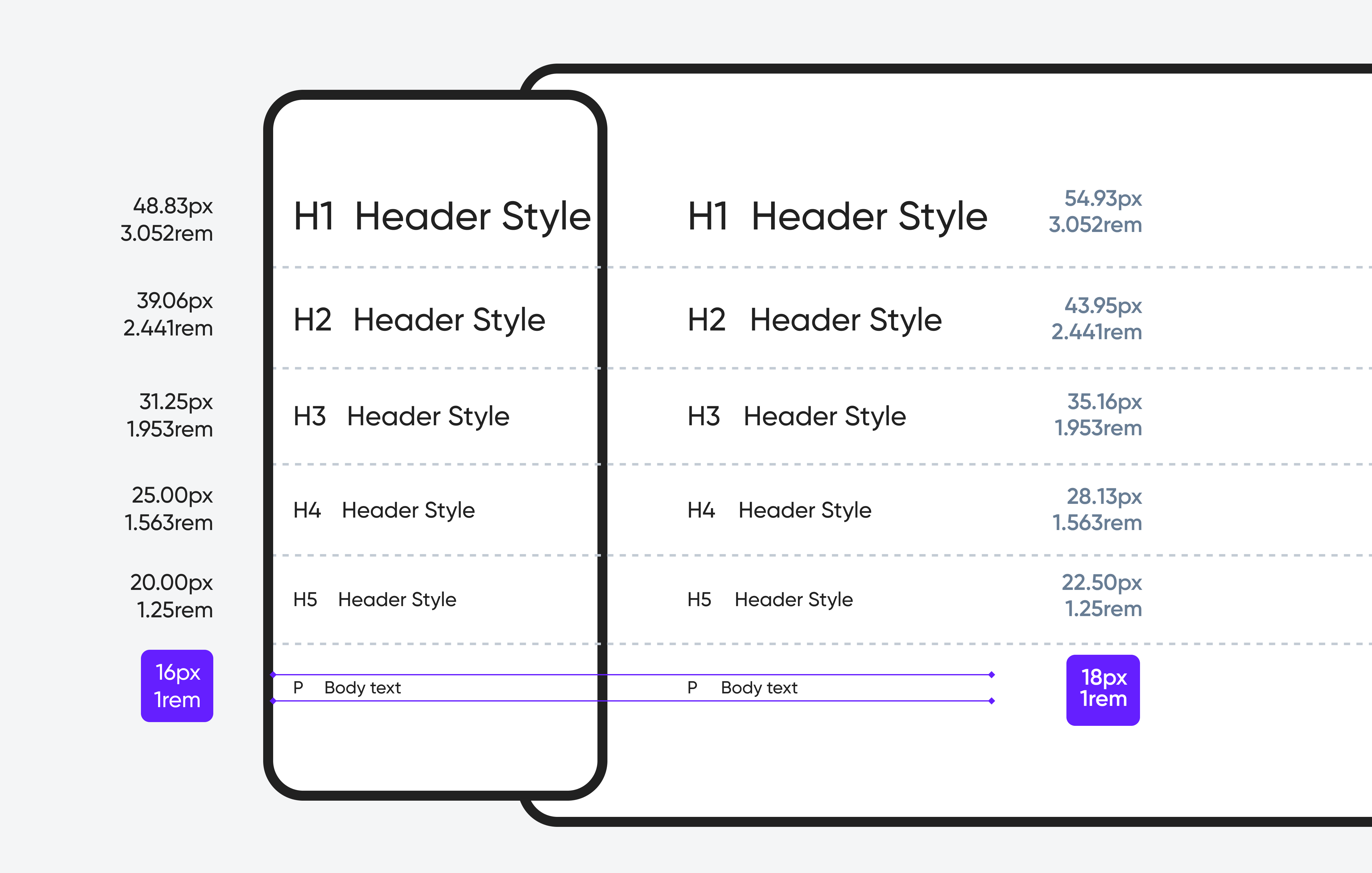
1. Optimal Font Size for Desktop
You have more room to experiment on large screens, like desktops and laptops. Hence, you can use a large font to optimize readability. However, there are certain conditions you must follow to get the best responsive website font size.
a. Body Text
The font size for the body text on the desktop screens should be around 16px to 24px (1rem to 1.5rem). For readability, the body text size must be at least 16px. Anything lower than 16px would affect the reading experience. Additionally, the input field size should closely match the body text size.
b. Headings and Subheadings
Heading sizes are typically around 30px to 64px (1.875rem to 4rem). Nevertheless, you may apply the heading 1.96 larger than your body text to create a clear contrast. For instance, if your body text is 18px, the headings can be around 35px.
You may use heavy-weight or expressive fonts to emphasize headings. Be sure that secondary fonts pair well with the primary fonts.
c. Secondary text
Secondary text can be used for descriptions, captions, or less important details. It is usually 2px smaller than the body text.
2. Optimal Font Size for Mobile
On the other hand, mobile devices have smaller screens, so you have less space to display your content. Choosing the best font size for responsive website design on mobile devices is necessary to maintain legibility. Here are some practices you need to apply.
a. Body Text
The body text on mobile devices can range from 16px to 20px. Like desktop screens, the body text must be at least 16px to retain legibility.
b. Headings
The headings should be 1.3x larger than your body text to maintain a clear contrast without spending too much space. For example, if you set 16px for body text, the headings should be around 21px.
c. Secondary Text
Like the desktop, the secondary text is 2px smaller than the body text.
Tips for Getting the Best Font Size for Responsive Website Design
Here are a few additional tips when selecting the best font size for responsive web design.
1. Adjust the Size Based on the Typefaces
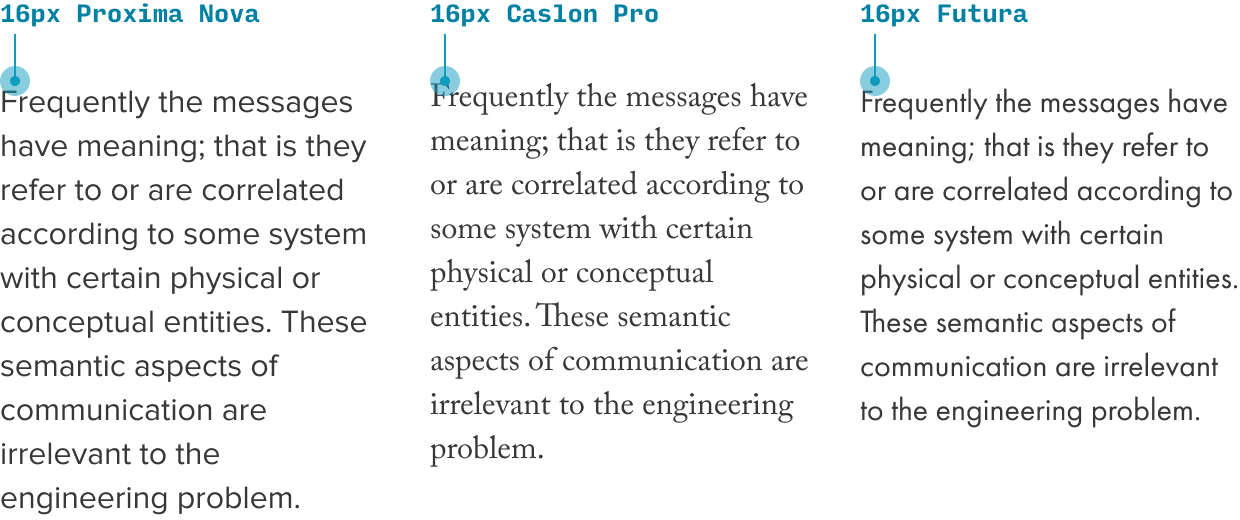
The typeface you choose can affect font sizing. This is because different typefaces have varying proportions. For instance, while Futura and Proxima Nova may be set at the same size, Futura appears smaller. So, you may need to tweak font sizes based on the chosen typeface.
2. Use the Right Units
Pixel is the most common and simplest unit for creating a responsive web design. It also facilitates collaboration between developers and design teams. However, pixels can be rigid, unresponsive, and potentially hinder user accessibility.
An alternative for the best font size unit for responsive design is em and rem. These units adjust based on the font size of the parent or root element, offering more flexibility and consistency in responsiveness.
3. Consider the Line Length and Line Height
Aside from font size, line length and line height (leading) are crucial to enhancing a website’s readability and performance. The optimal line length is typically between 50 and 75 characters per line, while line height should be 1.5 to 1.8 times the font size for better clarity.
4. Never Neglect Visual Testing and Optimization
You may use responsive design testers to review font sizes across various screen resolutions. This helps you spot issues with line height, spacing, or alignment that might be missed during development.
Optimize Your Website’s Font Size for Every Screen!